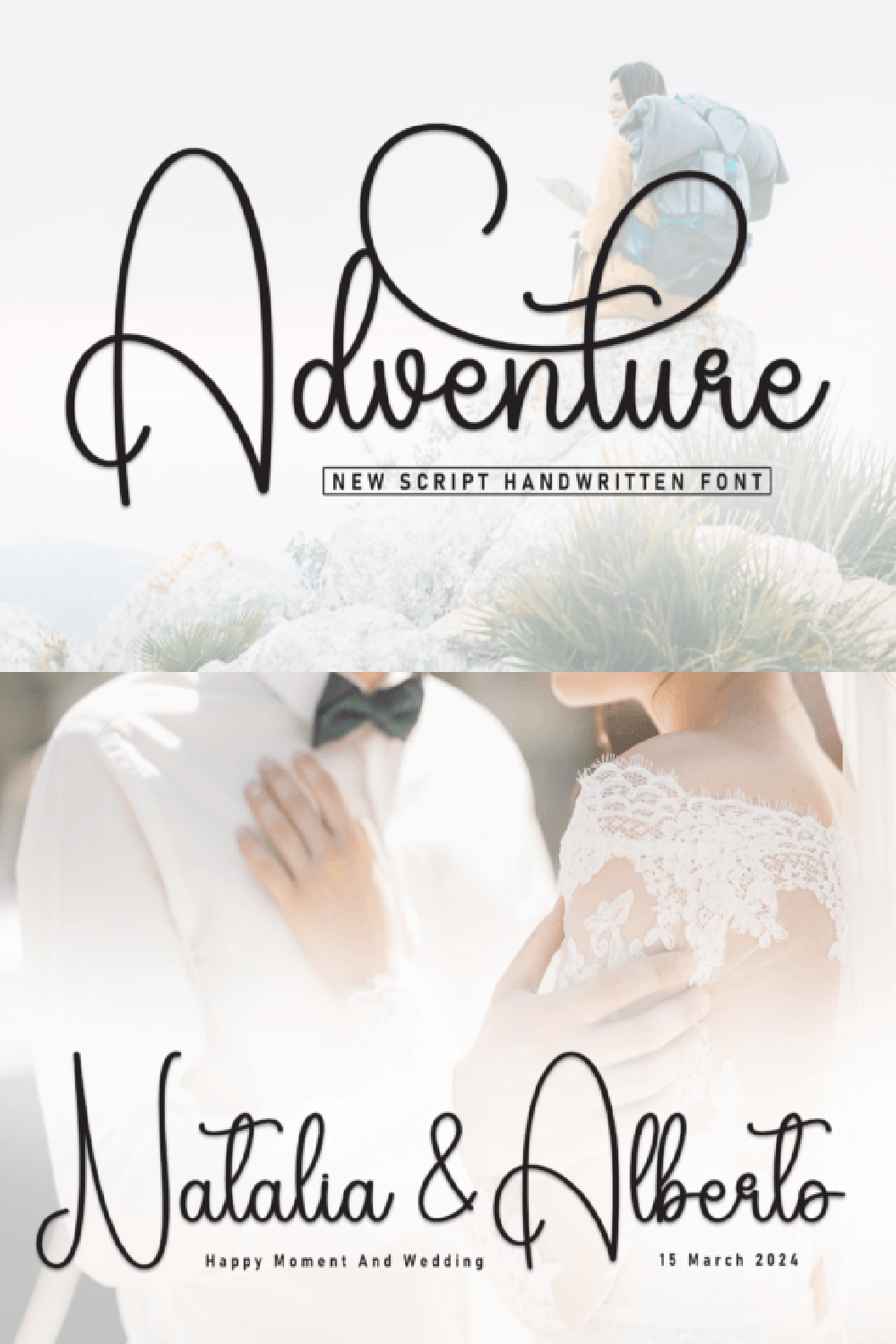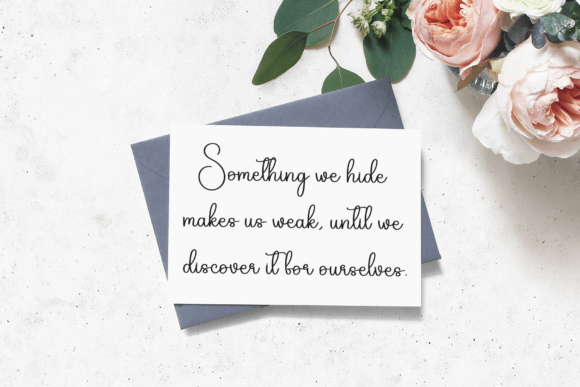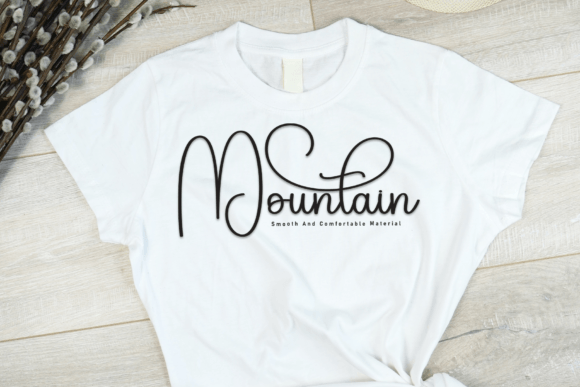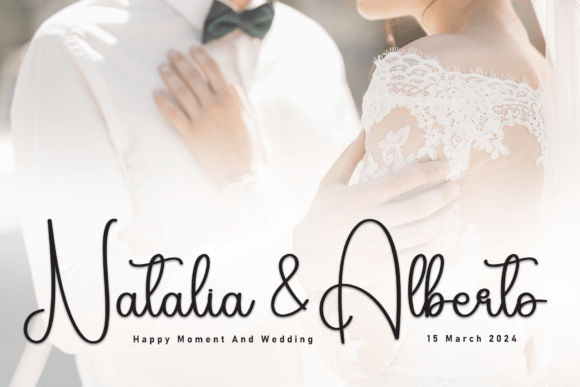
About the Adventure Font
Step up your design game with Adventure Font, a font that exudes confidence and style. Adventure is a sweet and friendly handwritten font. Its natural and unique style makes it incredibly fitting to a large pool of designs. The only limit is your imagination!